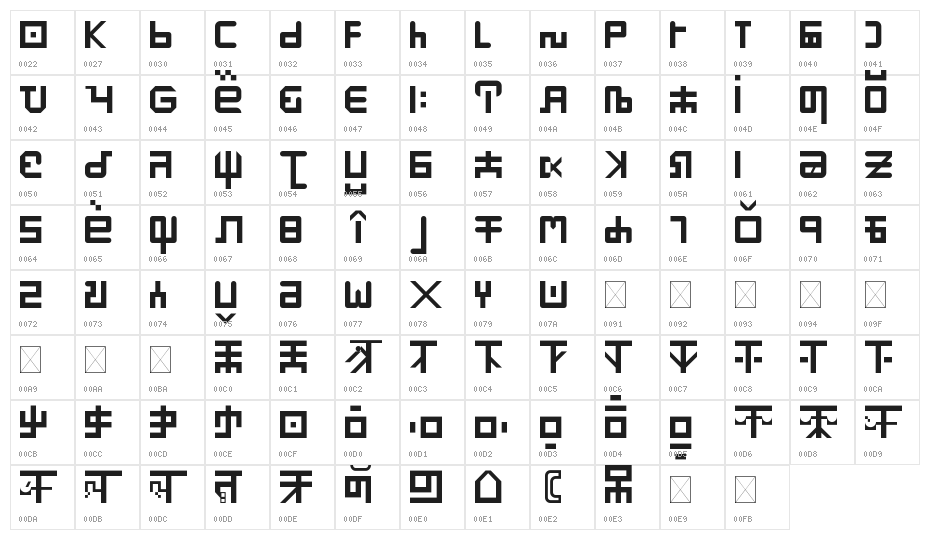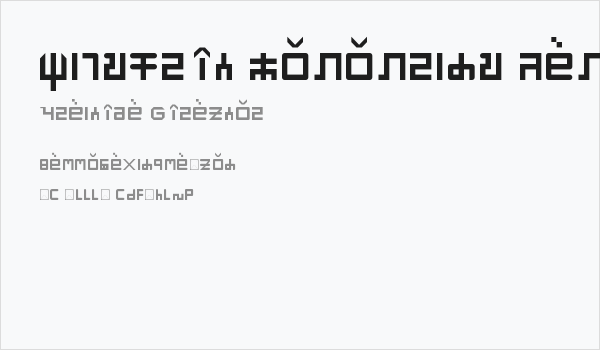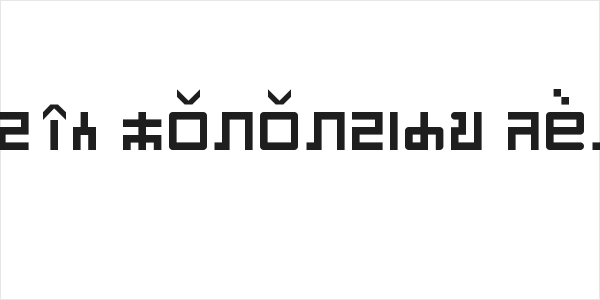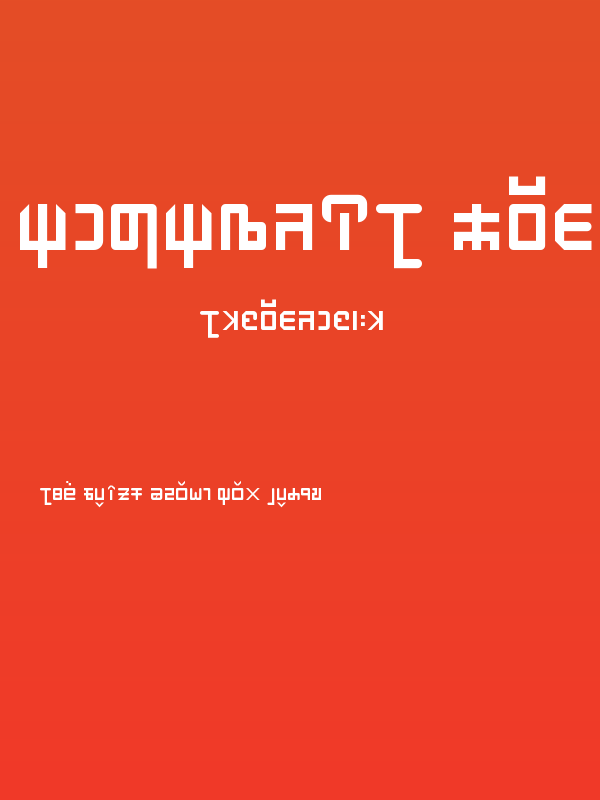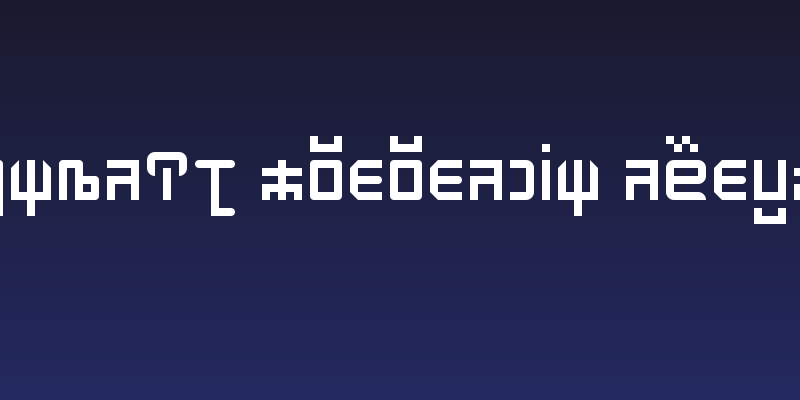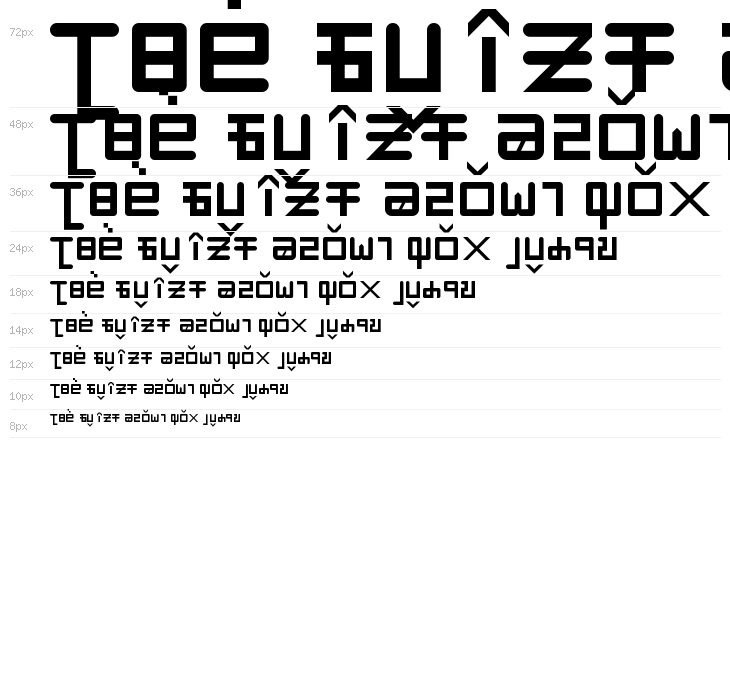
Sanskrit Logograms Regular Font
Sanskrit Logograms Regular Description
This font features a distinctive and bold geometric style, characterized by angular shapes and sharp edges. The characters are uniformly structured, with a consistent thickness throughout, giving it a monospaced appearance. The design incorporates elements reminiscent of ancient logograms, providing a unique and exotic aesthetic. The uppercase and lowercase letters maintain a consistent height, enhancing the uniformity of the font. The numerals and special characters are designed to match the overall geometric theme, making it suitable for projects that require a futuristic or tech-inspired look.
| Overall Style | Modern, Futuristic |
| Proposed Projects | Ideal for video game interfaces, sci-fi themed posters, and branding for tech companies. |